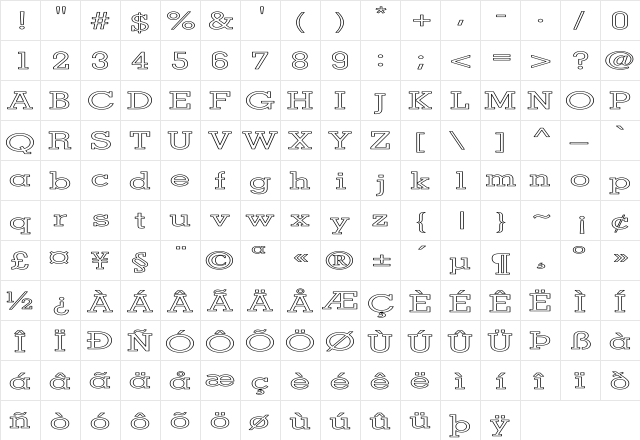
Memphis-Medium HE Regular
Memphis-Medium HE takes a measured approach to typography — its balanced proportions and neutral character make it a reliable workhorse for both digital and print work.